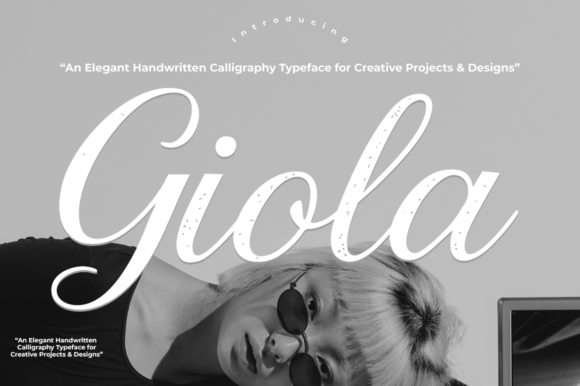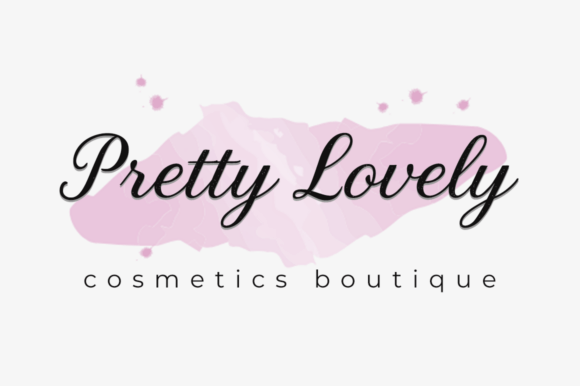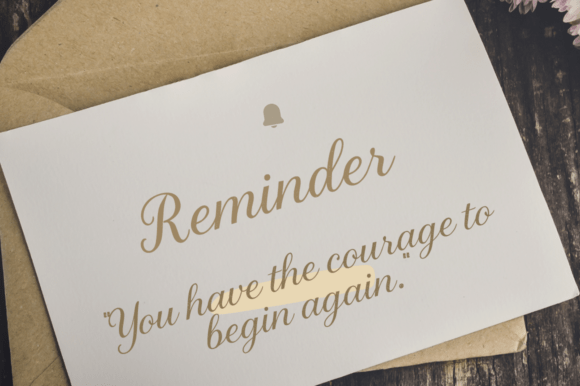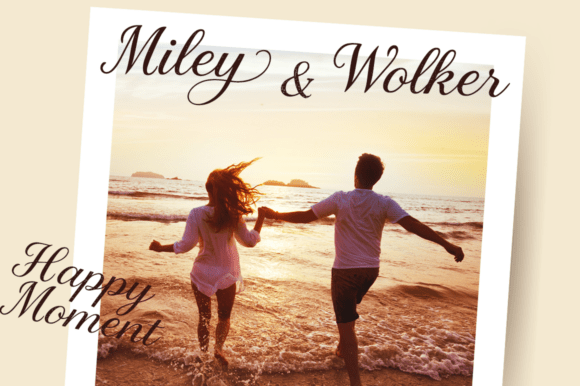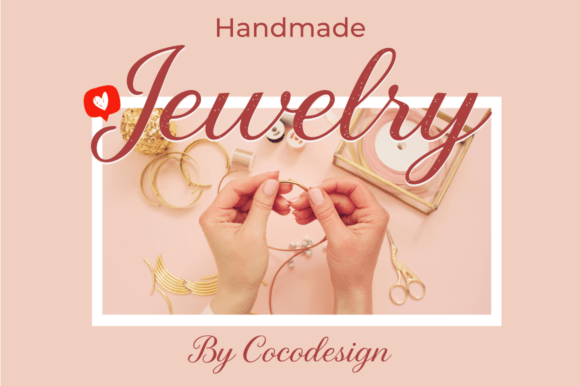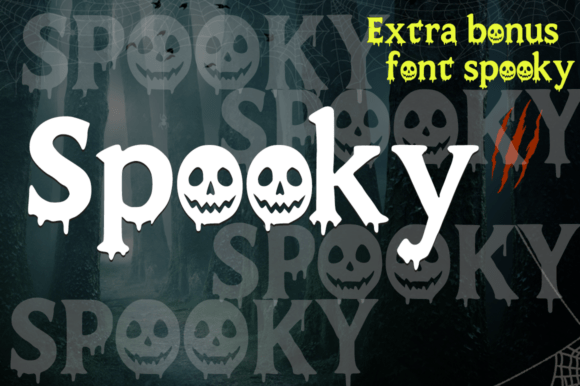
Giola Font
Giola is an elegant and modern handwriting calligraphy font. It is perfect for a wide range of creative projects such as wedding invitations, branding, logos, packaging, quotes, and social media posts. With its smooth curves and refined style, Giola adds a touch of sophistication to any design. As an extra, this package also includes a bonus Spooky Font with a fun horror style, ideal for Halloween themes, posters, flyers, games, or mystery-inspired designs.